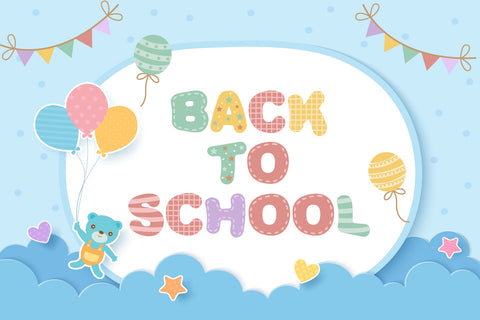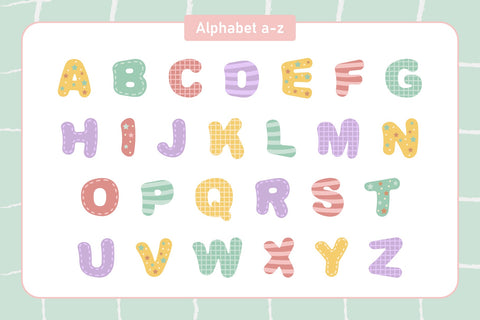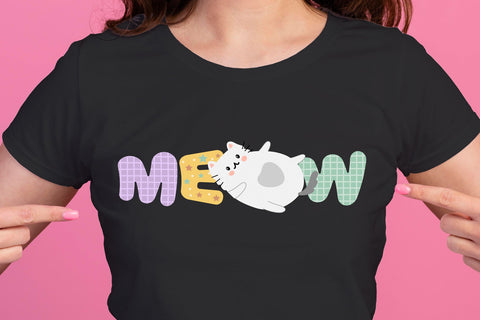
Cute Camila Color Fonts
Cute Camila is a cute, bright, and fun color font. Fall in love with its authentic feel and use it to create gorgeous invitations, beautiful stationary art, eye-catching social media posts, and cute greeting cards. Add this beautiful font to each of your creative ideas, and notice how it makes them stand out.